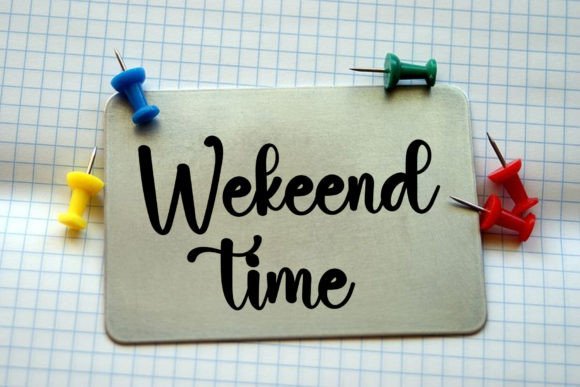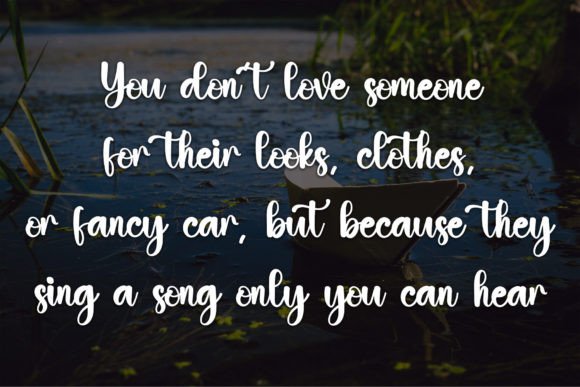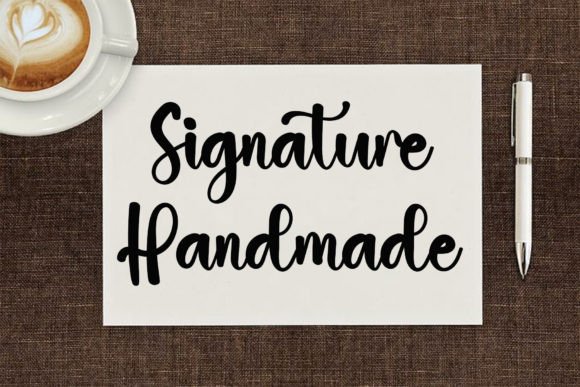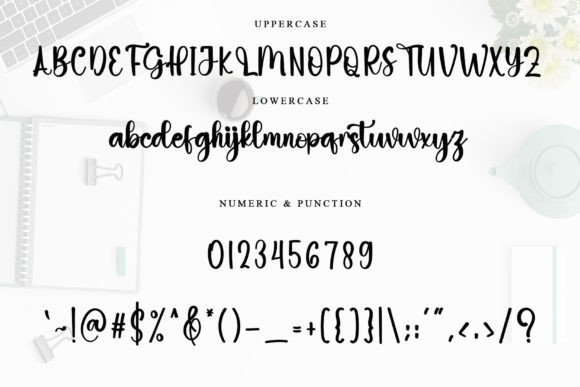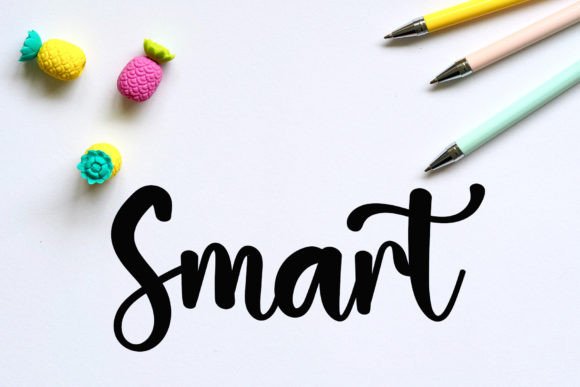
Discover the Beauty of Digital Font: Elevate Your Designs with Elegance
Are you on the hunt for a font that adds a touch of sophistication and elegance to your designs? Look no further than Digital Font, a stunning handwritten font that is sure to capture your heart. With its unique and timeless style, Digital Font is the perfect choice for designers and crafters looking to create spectacular designs that stand out from the crowd.
What is Digital Font?
Digital Font is a beautiful handwritten font that boasts an elegant touch, making it ideal for a wide range of projects. Whether you’re working on a branding campaign, creating social media graphics, or designing a website, Digital Font is the perfect choice. Its incredibly distinct style is sure to grab attention and leave a lasting impression on your audience.
Key Features of Digital Font
- Elegant and Sophisticated: Digital Font exudes elegance and sophistication, making it perfect for designs that require a touch of refinement.
- Handwritten Style: The font’s handwritten style gives it a personal and unique touch, setting it apart from more traditional fonts.
- Timeless Appeal: Digital Font’s classic style ensures that it will remain relevant for years to come, making it a great investment for designers and crafters.
- Versatile: Digital Font is versatile and can be used for a wide range of projects, from branding and advertising to social media graphics and website design.
Why Choose Digital Font?
So, why should you choose Digital Font for your next project? Here are just a few reasons:
- Stand Out from the Crowd: Digital Font’s unique style ensures that your designs will stand out from the crowd and grab attention.
- Easy to Read: Despite its elegant style, Digital Font is easy to read, making it perfect for body text and headlines.
- Customizable: Digital Font can be customized to suit your needs, allowing you to adjust the font size, color, and style to fit your brand’s identity.
How to Use Digital Font in Your Designs
Using Digital Font in your designs is easy. Here are a few tips to get you started:
- Pair it with Other Fonts: Digital Font pairs well with other fonts, making it easy to create a cohesive look for your designs.
- Experiment with Colors: Digital Font looks great in a range of colors, so don’t be afraid to experiment and find the perfect hue for your brand.
- Use it for Headlines and Body Text: Digital Font is perfect for both headlines and body text, making it a versatile addition to your design toolkit.
Here are a few tips for designers and crafters looking to get the most out of Digital Font:
- Use it for Branding: Digital Font is perfect for branding campaigns, adding a touch of elegance and sophistication to your brand’s identity.
- Create Social Media Graphics: Digital Font is great for social media graphics, helping you to create eye-catching posts that grab attention.
- Design a Website: Digital Font can be used to design a website that is both elegant and easy to read, making it perfect for businesses and individuals looking to create a professional online presence.
In conclusion, Digital Font is a beautiful handwritten font that is sure to elevate your designs with its elegant touch. With its unique and timeless style, Digital Font is the perfect choice for designers and crafters looking to create spectacular designs that stand out from the crowd. So why not give it a try and see the difference it can make in your designs?